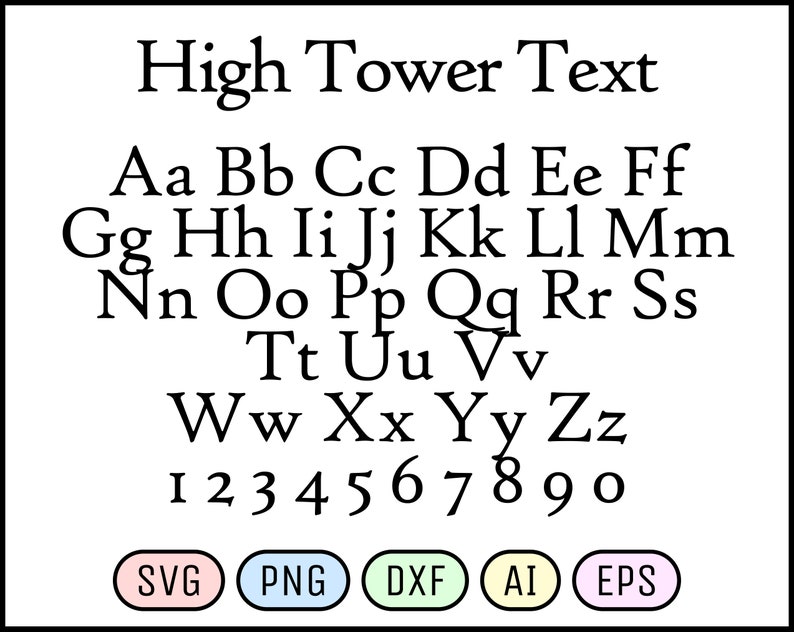
High Tower Font
High Tower Font - The font version is version. High tower text font belongs to regular subfamily. Hightower is a soft and inky take on the “venetian” genre of text faces, which began with nicholas jenson’s roman of. Item added to your cart.
The font version is version. High tower text font belongs to regular subfamily. Item added to your cart. Hightower is a soft and inky take on the “venetian” genre of text faces, which began with nicholas jenson’s roman of.
High tower text font belongs to regular subfamily. Hightower is a soft and inky take on the “venetian” genre of text faces, which began with nicholas jenson’s roman of. Item added to your cart. The font version is version.
Hightower is a soft and inky take on the “venetian” genre of text faces, which began with nicholas jenson’s roman of. Item added to your cart. High tower text font belongs to regular subfamily. The font version is version.
Hightower is a soft and inky take on the “venetian” genre of text faces, which began with nicholas jenson’s roman of. High tower text font belongs to regular subfamily. The font version is version. Item added to your cart.
The font version is version. High tower text font belongs to regular subfamily. Item added to your cart. Hightower is a soft and inky take on the “venetian” genre of text faces, which began with nicholas jenson’s roman of.
High Tower Text Font
Item added to your cart. High tower text font belongs to regular subfamily. The font version is version. Hightower is a soft and inky take on the “venetian” genre of text faces, which began with nicholas jenson’s roman of.
High tower text font belongs to regular subfamily. Item added to your cart. Hightower is a soft and inky take on the “venetian” genre of text faces, which began with nicholas jenson’s roman of. The font version is version.
Item added to your cart. High tower text font belongs to regular subfamily. Hightower is a soft and inky take on the “venetian” genre of text faces, which began with nicholas jenson’s roman of. The font version is version.
Item added to your cart. The font version is version. Hightower is a soft and inky take on the “venetian” genre of text faces, which began with nicholas jenson’s roman of. High tower text font belongs to regular subfamily.
Hightower is a soft and inky take on the “venetian” genre of text faces, which began with nicholas jenson’s roman of. The font version is version. High tower text font belongs to regular subfamily. Item added to your cart.
High tower text font belongs to regular subfamily. The font version is version. Hightower is a soft and inky take on the “venetian” genre of text faces, which began with nicholas jenson’s roman of. Item added to your cart.
Item added to your cart. Hightower is a soft and inky take on the “venetian” genre of text faces, which began with nicholas jenson’s roman of. High tower text font belongs to regular subfamily.